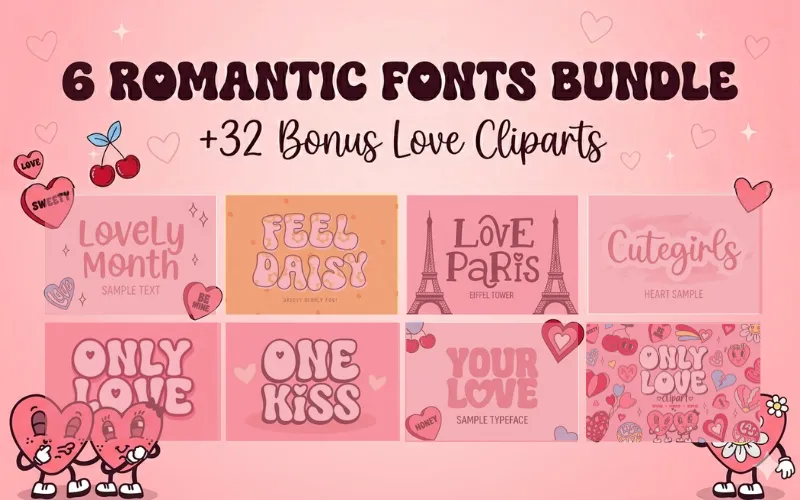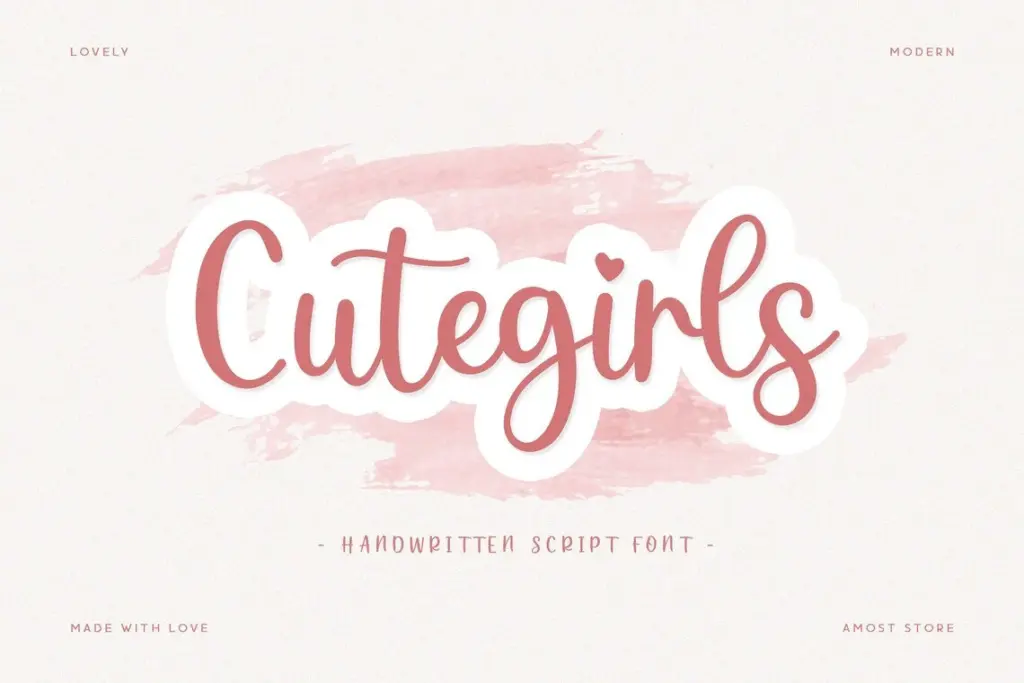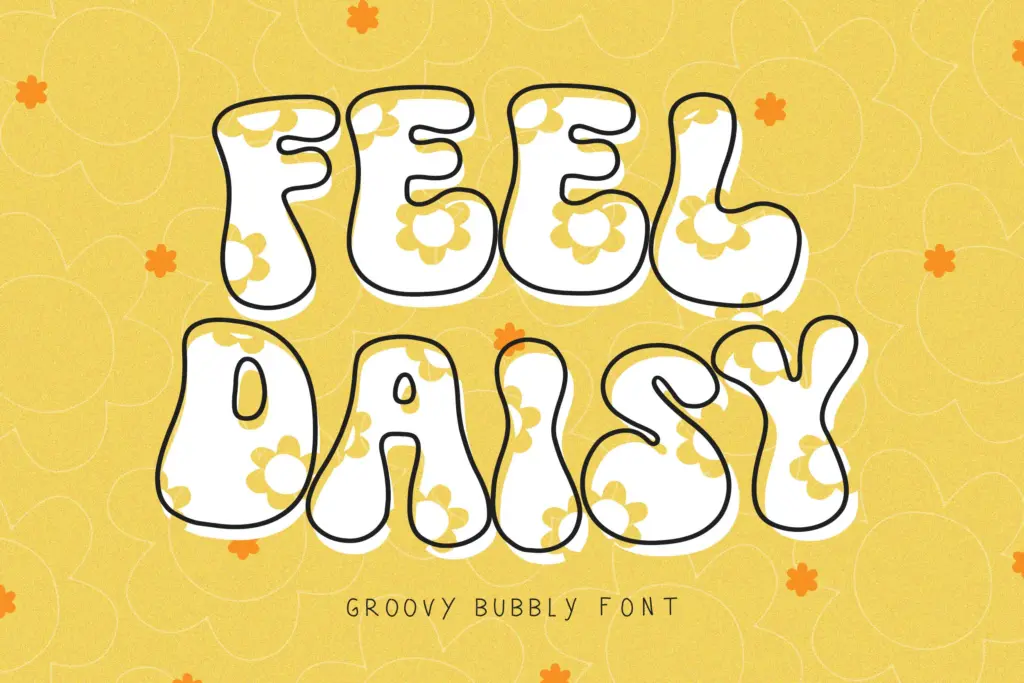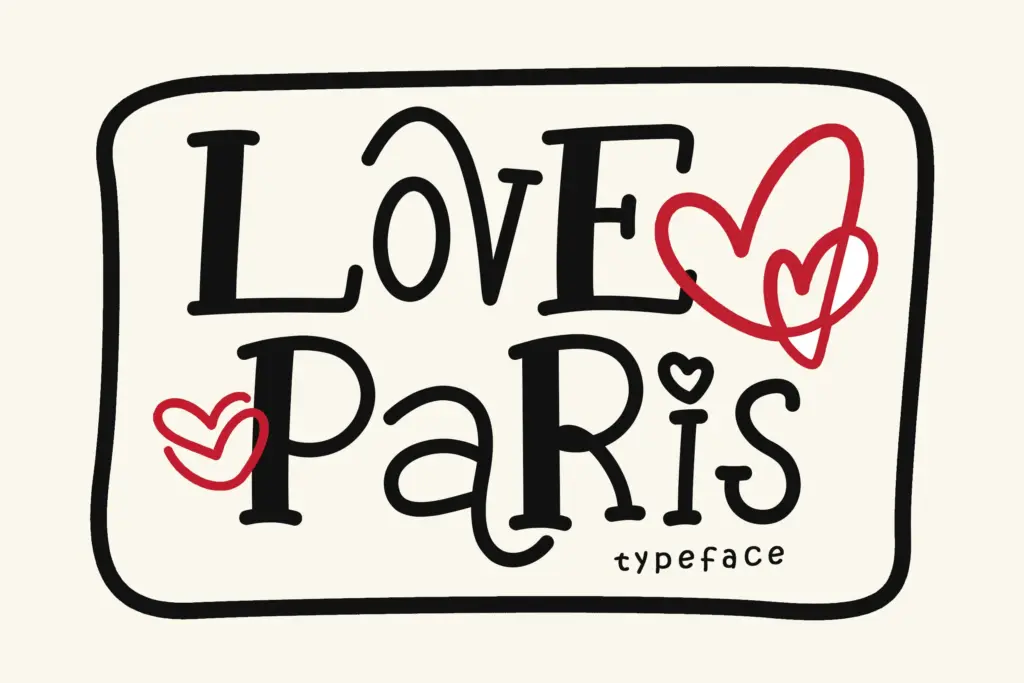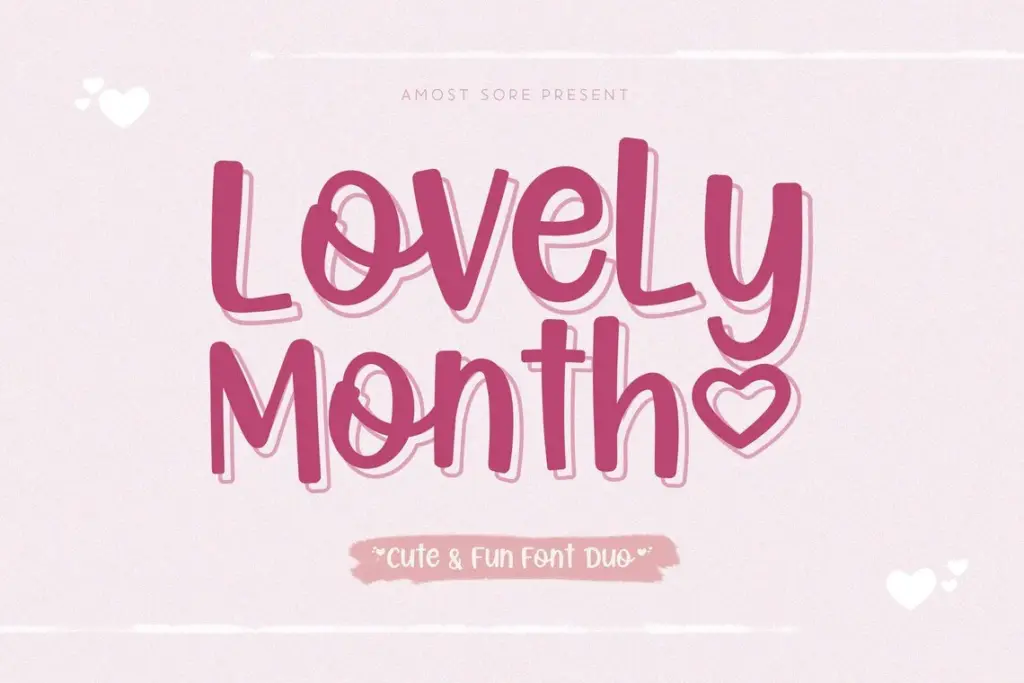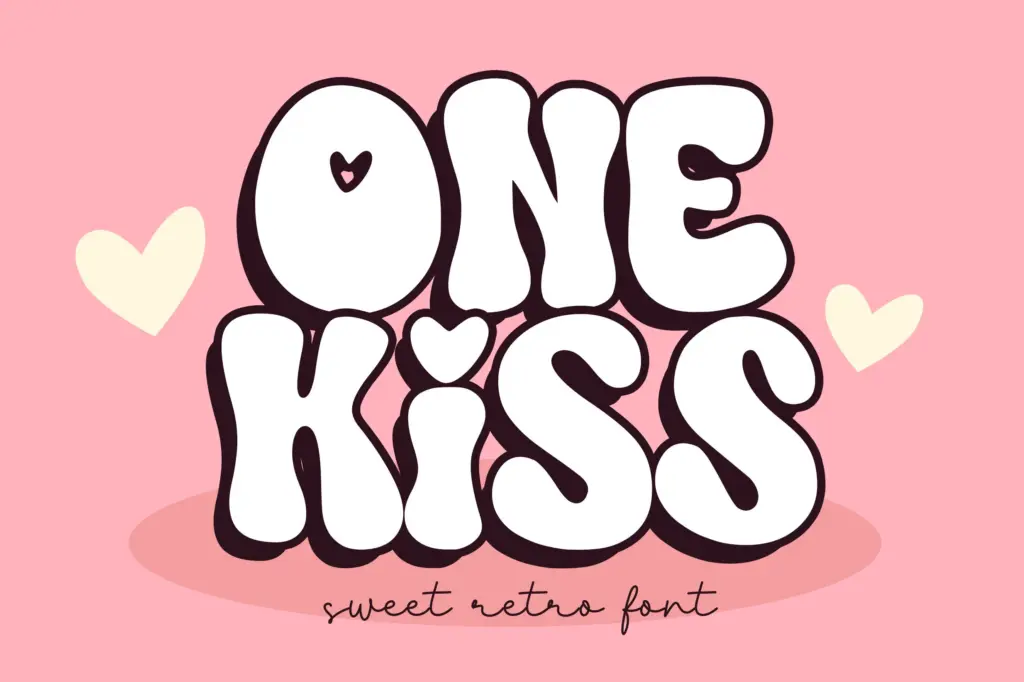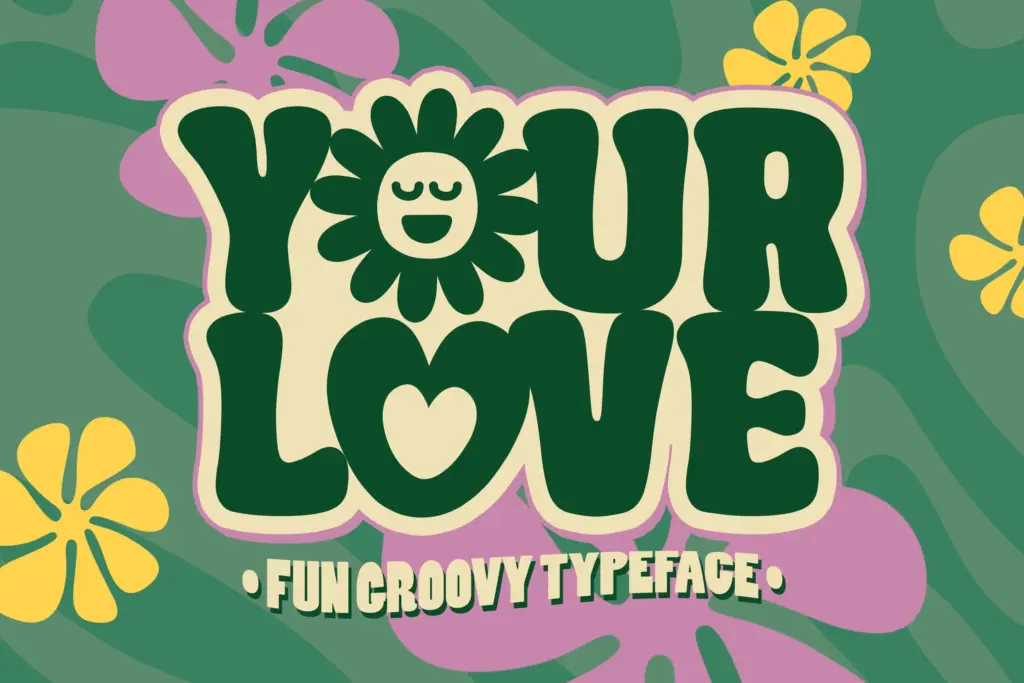
Finding the perfect romantic font to give your project a professional, stylish touch isn’t always easy. That’s why we’ve curated the
Romantic Fonts Bundle
A collection of high-quality romantic fonts featuring Script, Display, & Handwritten styles.
What You Get In This Romantic Fonts Bundle:
- Cutegirls – A modern handwritten script font.
- Feel Daisy – A groovy bubbly font (includes Daisy Reguler & Daisy Fill).
- Love Paris – A stylish & romantic decorative typeface.
- Lovely Month – A cute and fun font duo (includes Lovely Month & Lovely Month Hollow).
- One Kiss – A sweet, bubbly retro font.
- Your Love – A fun, bold, groovy typeface.